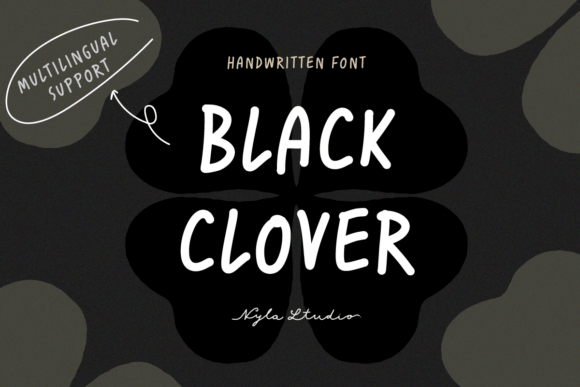
The Ultimate Guide to Black Clover Font: A Designer’s New Best Friend
I’ll never forget the time I was working on a project for a client who wanted a playful, yet elegant font for their branding. I scoured the internet for hours, trying to find the perfect fit. That’s when I stumbled upon Black Clover Font. It was love at first sight! This casual handwritten font has been a game-changer for my designs, and I’m excited to share its awesomeness with you.
An Honest Review of Black Clover Font
- ✨ Perfectly imperfect: Black Clover Font has a delightfully handmade feel that’s perfect for creating posters, logos, greeting cards, and more.
- ✅ Versatile: Its casual vibe makes it suitable for a wide range of design projects, from packaging to illustrations.
- 💫 Easy on the eyes: The font is clean and readable, even at smaller sizes.
While Black Clover Font is amazing, it’s not perfect. Here are a few things to keep in mind:
- ⚠️ Limited formal settings: This font is best suited for creative, casual projects. It might not be the best fit for more formal or corporate designs.
- 🤔 Some letters may require adjustment: Depending on the word or phrase, you might need to adjust the spacing or kerning to get the desired look.
One of the best things about Black Clover Font is its support for OpenType features and glyphs. Here are a few tips for getting the most out of these features:
- Stylistic alternates: Experiment with different stylistic alternates to add some personality to your text.
- Glyphs: Use glyphs to add decorative elements to your text, like swashes or ornaments.
The Story Behind Black Clover Font
Black Clover Font was designed with the intention of creating a friendly, approachable font that’s perfect for everyday designs. The designer wanted to create a font that felt like a handwritten note from a friend.
Q: What is Black Clover Font?
A: Black Clover Font is a casual handwritten font perfect for creating posters, logos, greeting cards, packaging, notetaking, illustrations, and more.